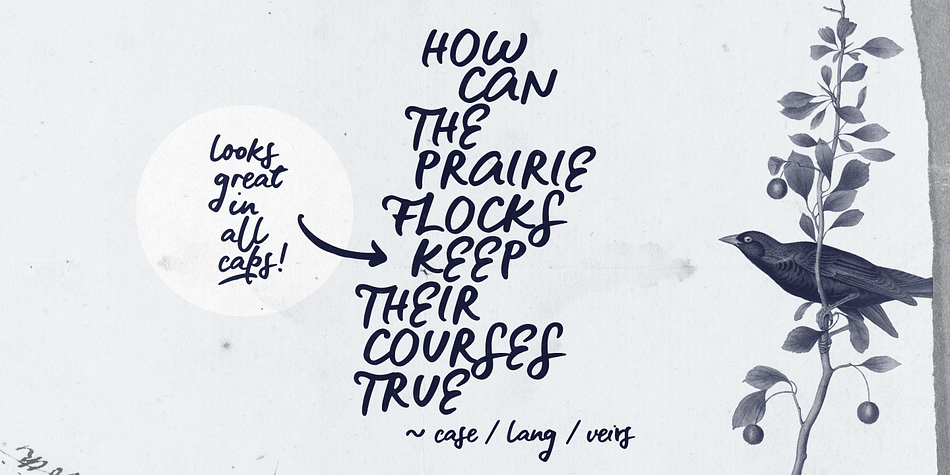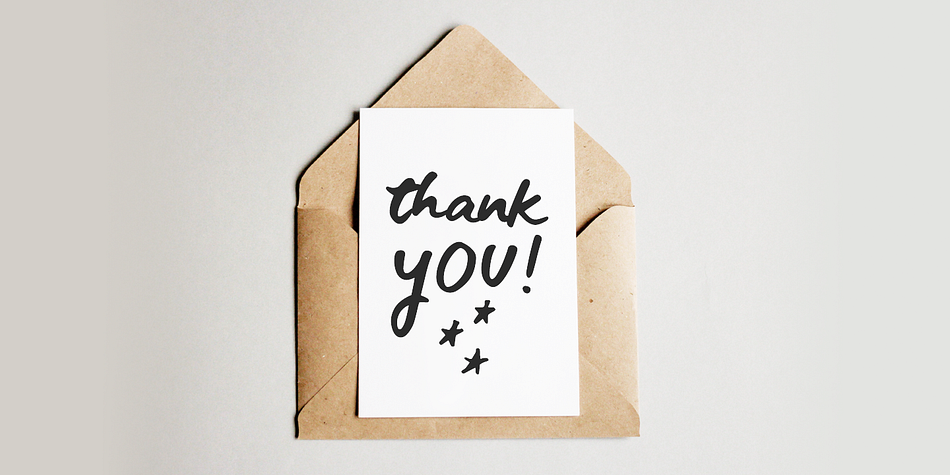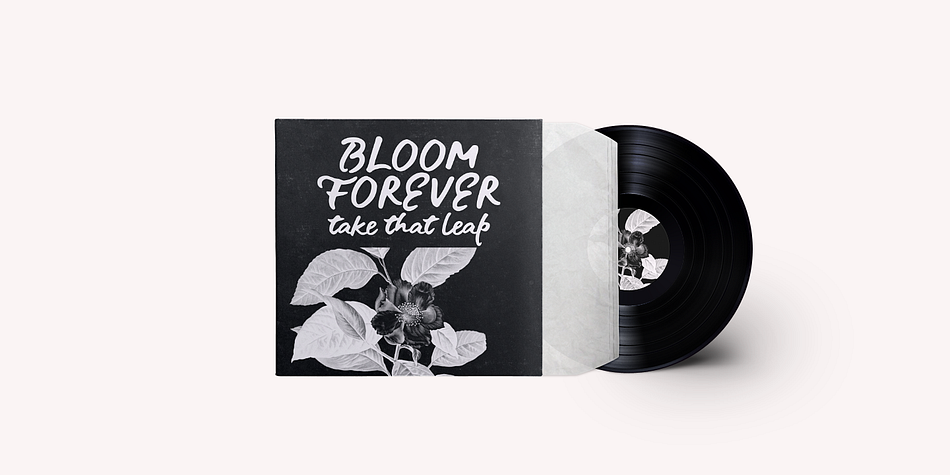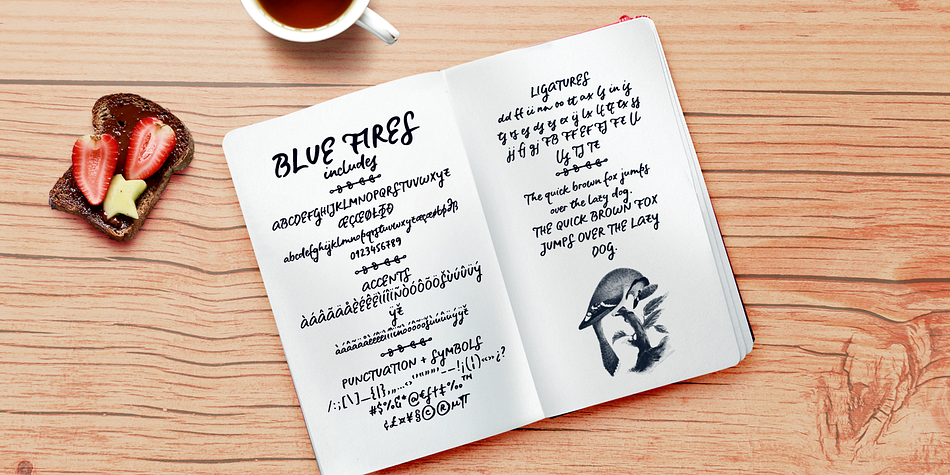
Designed by Ana Parracho, Blue Fires is a dingbat and hand drawn font family. This typeface has two styles and was published by Ana's Fonts.
Meet Blue Fires! A quick and easy handwritten font, with:
- A-Z, a-z, 0-9, accents, punctuation and symbols
- Bonus swashes, circles, arrows and ornaments
Blue Fires can be used for quotes, logos, packaging, merchandise. It is a versatile font that looks great in both short bursts and longer texts, in lower case and all caps.